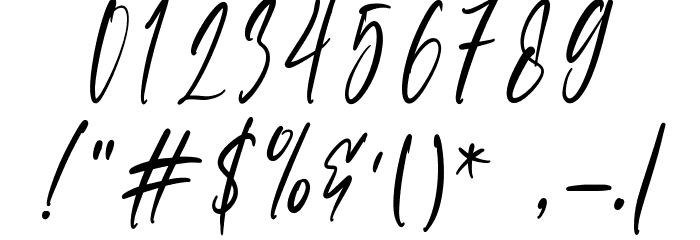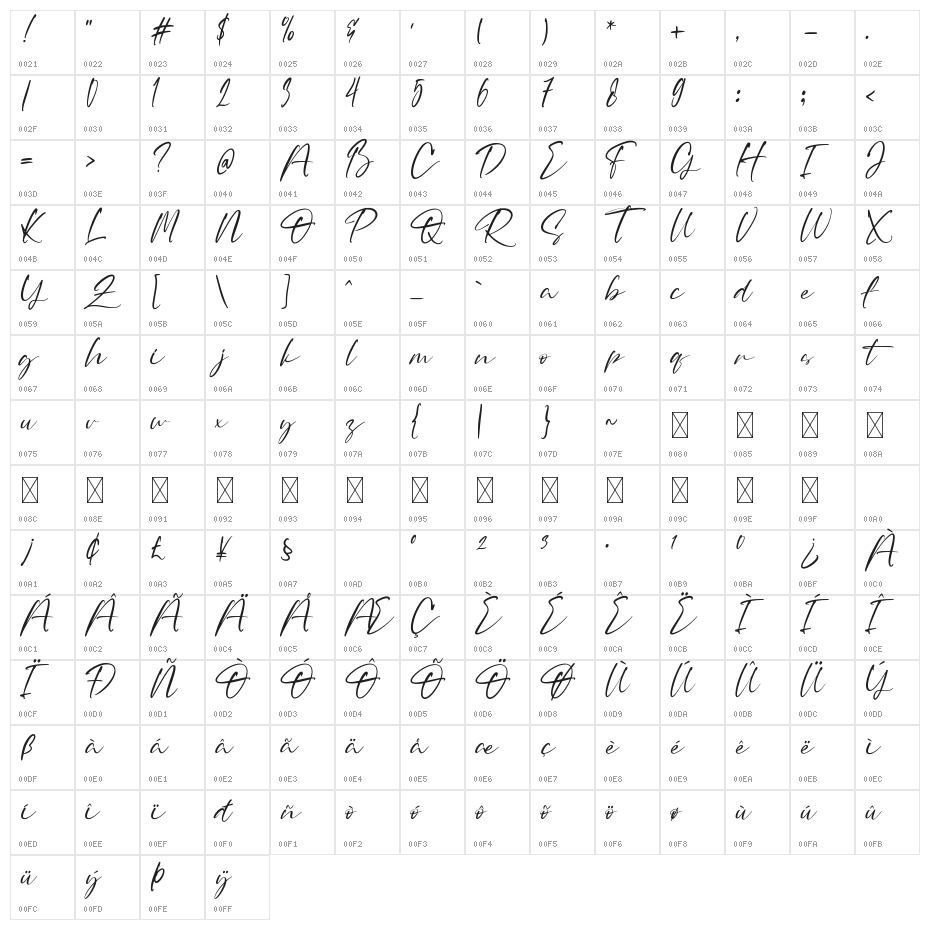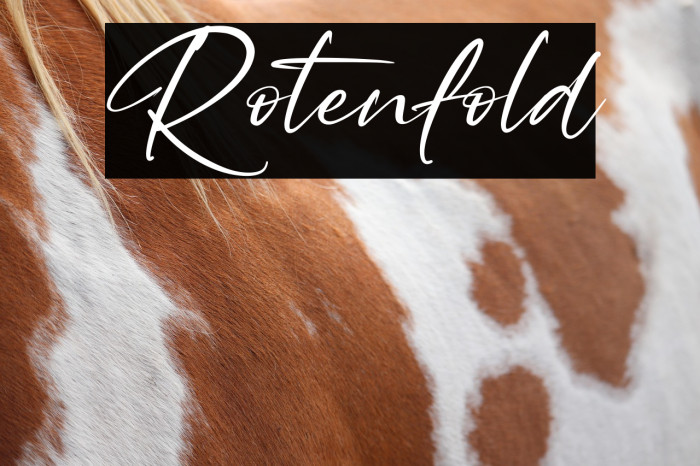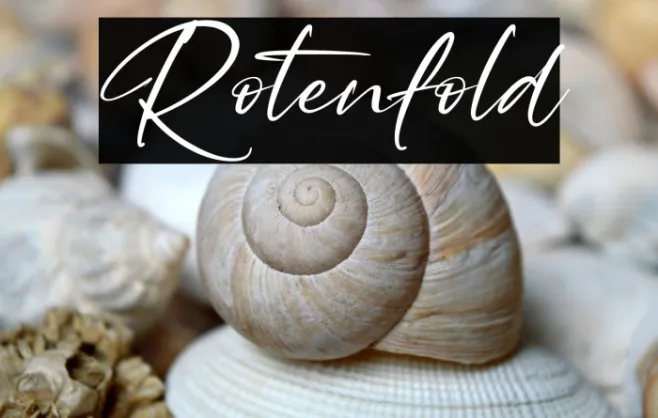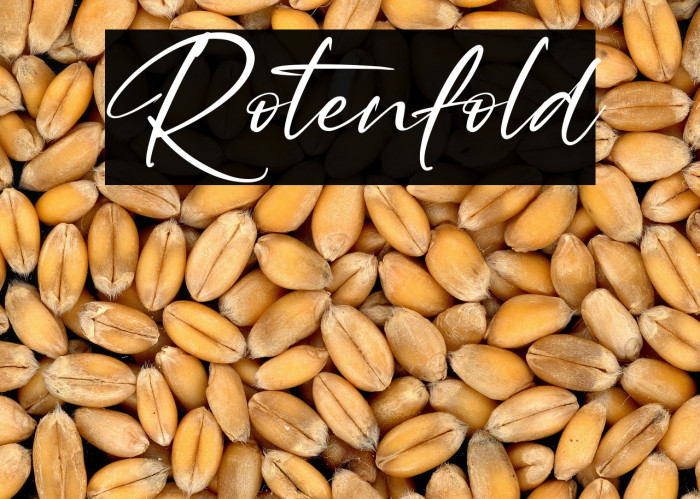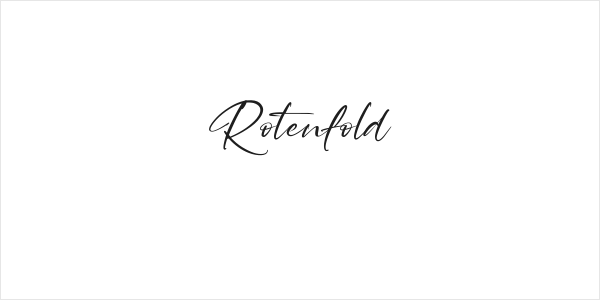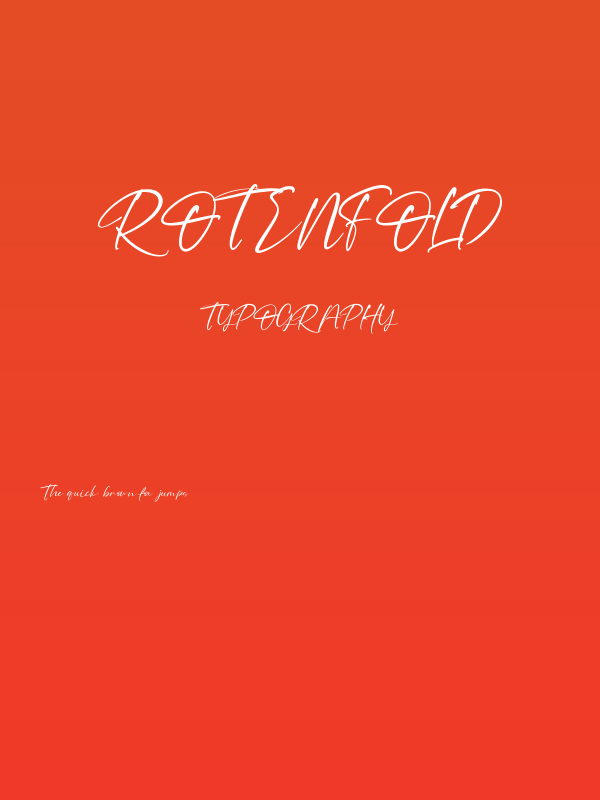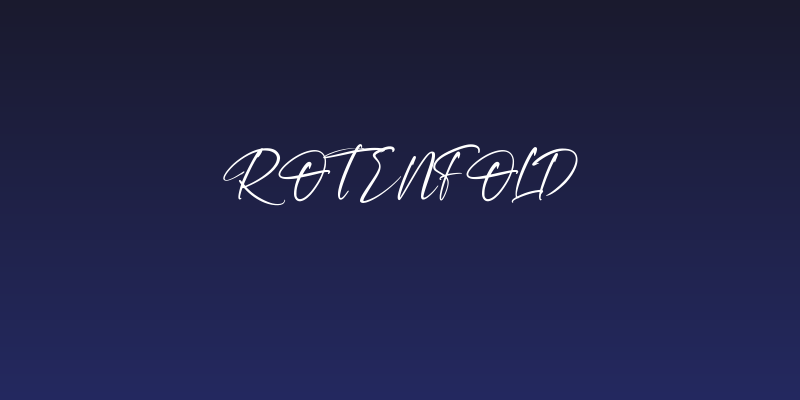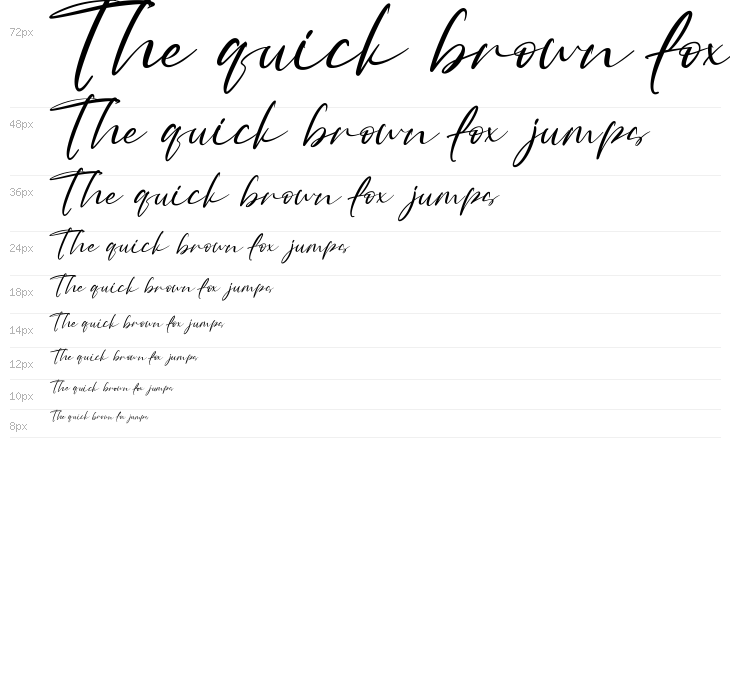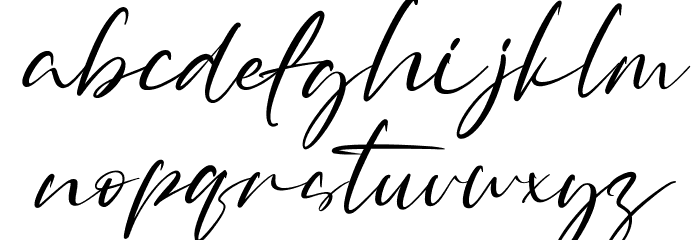
Rotenfold Font
Rotenfold Description
This font exudes a dynamic and fluid style, characterized by its elegant, cursive script. The letters are interconnected with a smooth flow, creating a sense of movement and grace. The uppercase letters are bold and sweeping, while the lowercase letters maintain a consistent rhythm with slightly elongated ascenders and descenders. The numerals are stylishly crafted, maintaining the overall cursive theme. Special characters are seamlessly integrated, adding versatility to the font. The overall impression is one of sophistication and artistic flair, making it suitable for creative and expressive design projects.
| Overall Style | Elegant, Artistic |
| Proposed Projects | Ideal for wedding invitations, greeting cards, branding, and elegant logo designs. |